Creative Fonts Traditional Collection
Traditional Fonts Collection comes with unique and professionally created fonts that represent a modern take on traditional fonts and makes a great addition to any font library.
The Creative Fonts Traditional Collection is a unique, hand selected group of fonts. Each font is categorized into themed sets that you can view in more detail below.
Classic Fonts:
The perfect collection for professional newsletters, print ads, and more. Bring a touch of class to your creative projects.
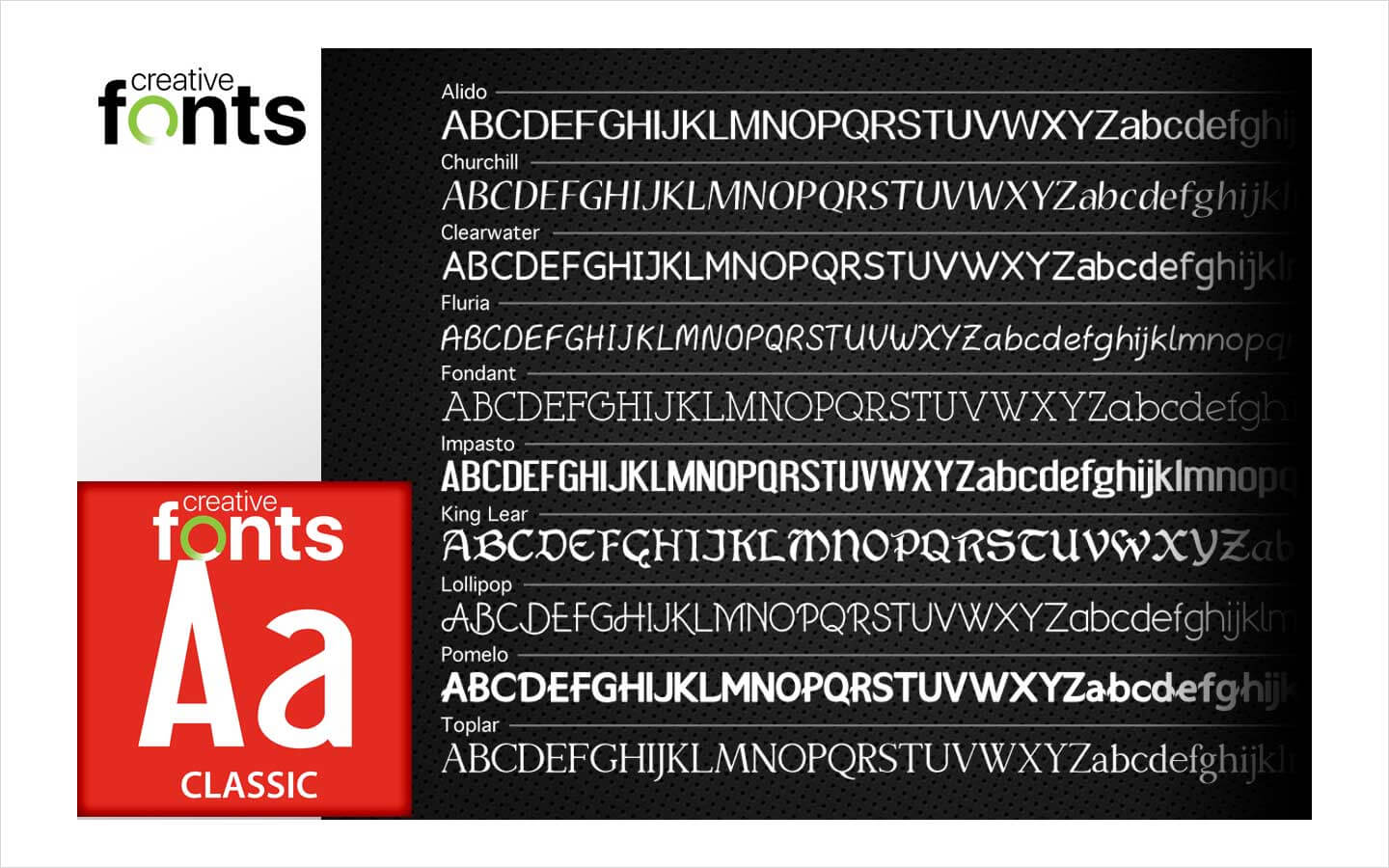
Cursive Fonts:
Add sophistication to your next soirée invitation, with a cursive font that conveys a hint of luxury. Perfect for upscale invitations, place holders or black-tie events.
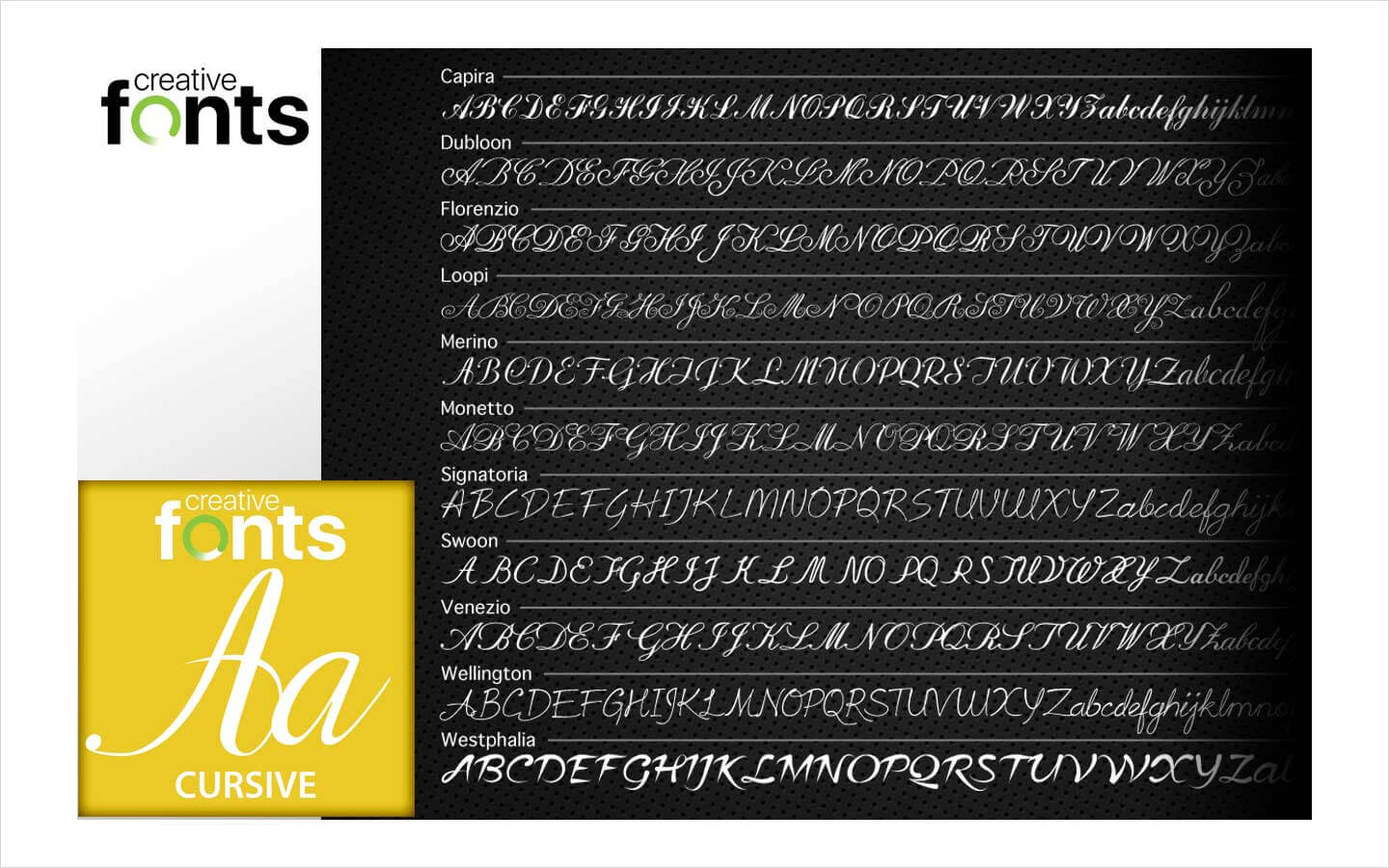
Creativity Fonts:
This Creativity Fonts Collection is as varied and wide-ranged as your own imagination. Add an artistic flair to your projects like birthday invites, logos, and signs.
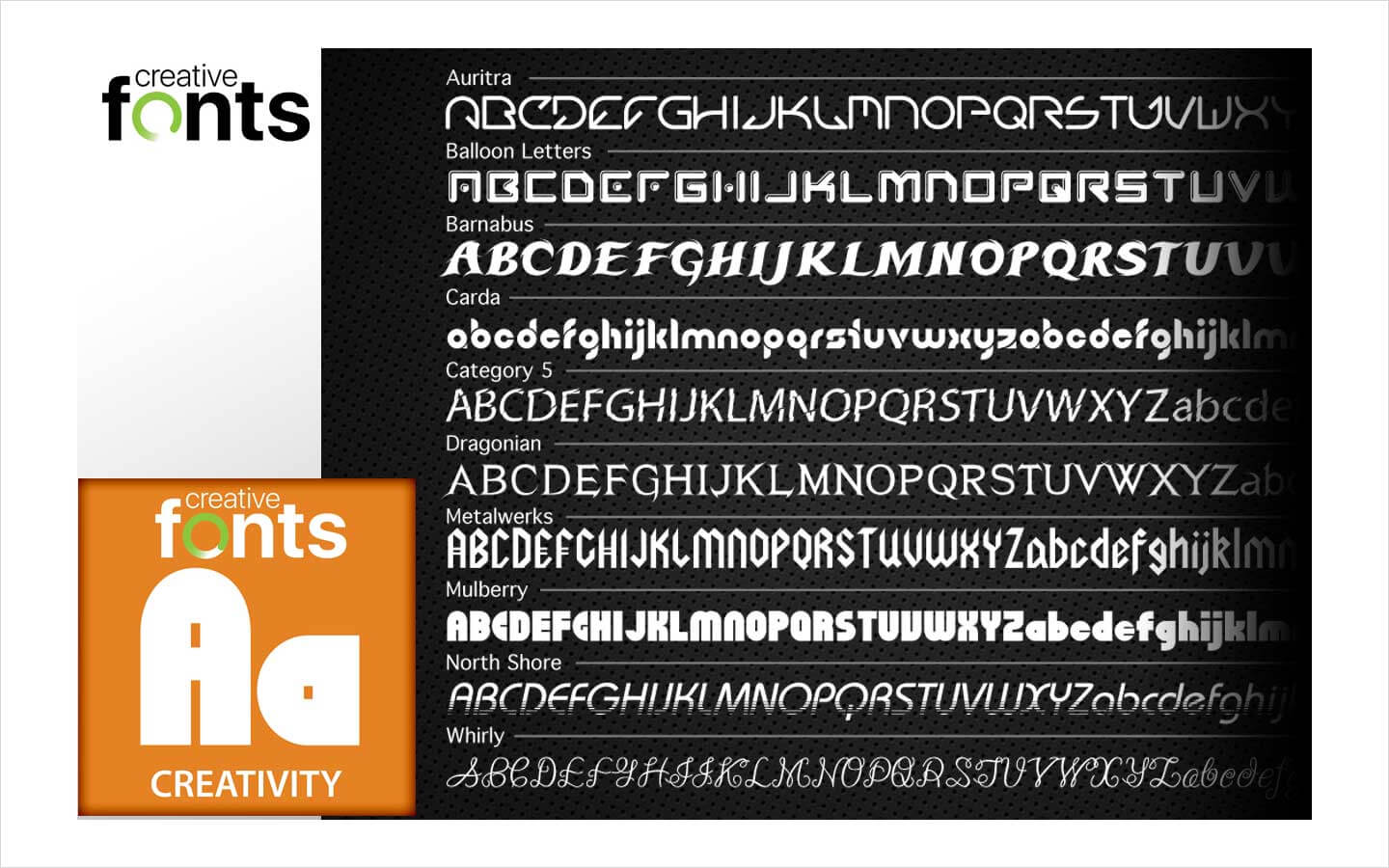
Designer Fonts:
Fonts that designers search for. Eye catching, unique fonts that set you apart from everyone else and are perfect for branding, signage, logos and more.
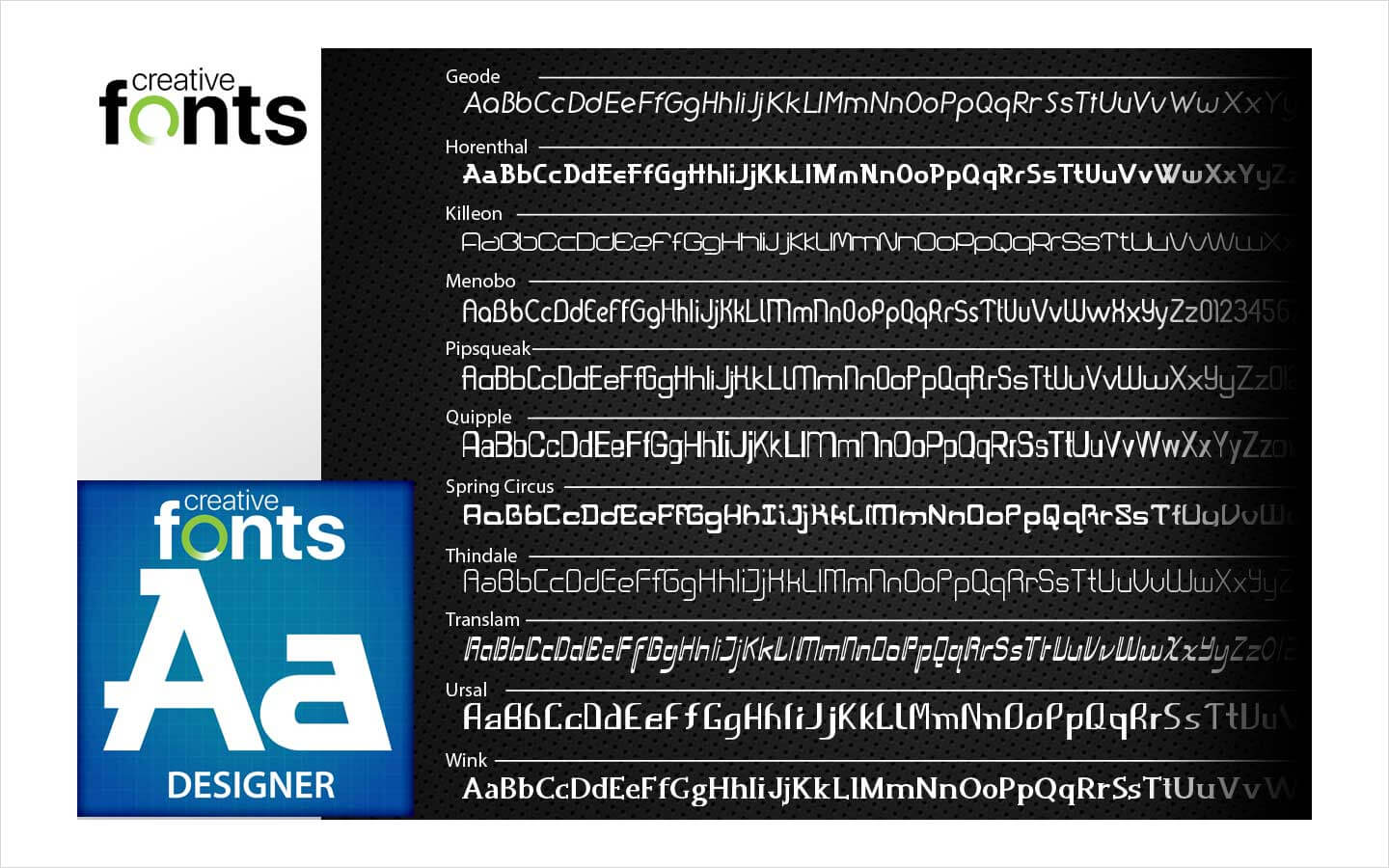
Cool Fonts:
A modern take on fonts with clean, crisp, cool font selections. This collection is perfect for modern websites, brands and logos. They also work great with hip and trendy night clubs, parties, and events.
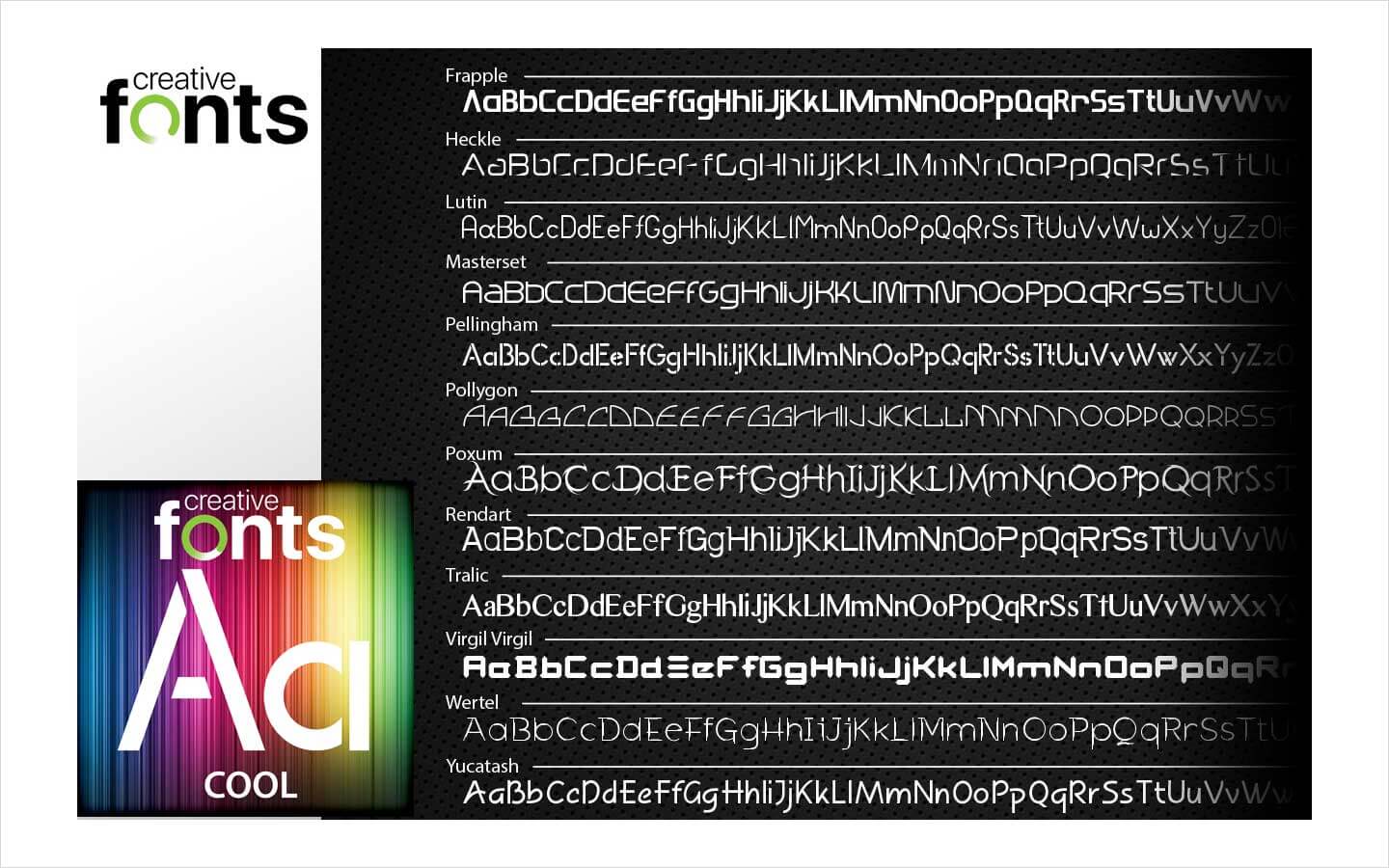
Handwriting Fonts:
Create your invitation with a personal touch your guests deserve. Our Handwriting Fonts Collection takes the mass production feel out of any project and replaces it with a warm handwritten one.
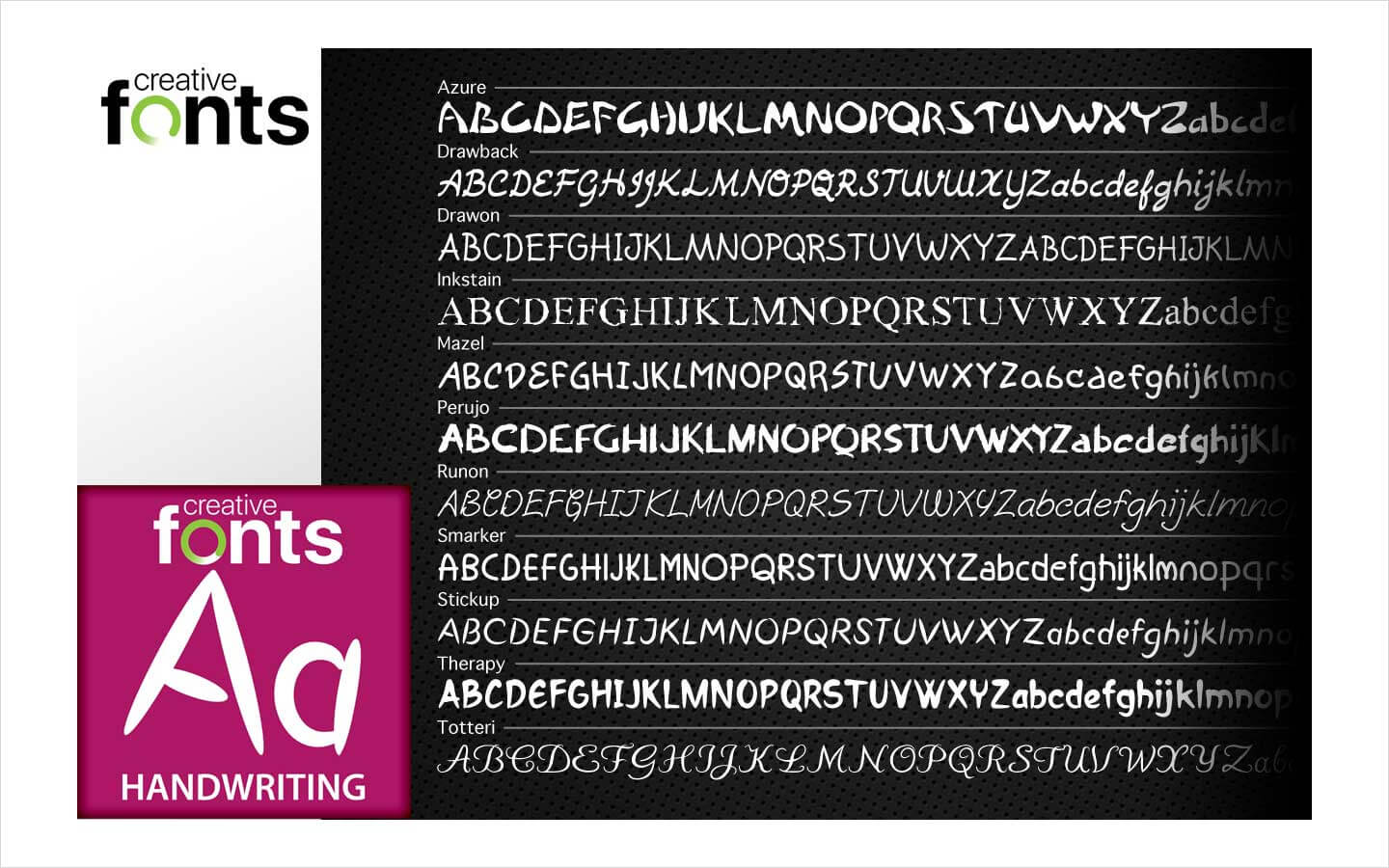
Full Character Sets:
Each and every creative font contains a full set of characters plus all of the international and foreign language symbols and special characters.